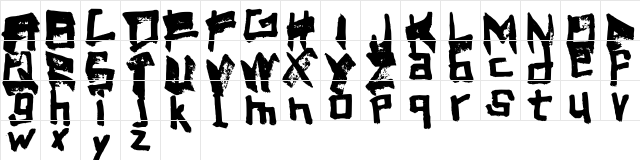
Kingoff Regular Free Font
Kingoff Regular
Design Context for Kingoff
Kingoff is a composed and adaptable typeface that performs quietly and consistently across a wide range of design contexts.